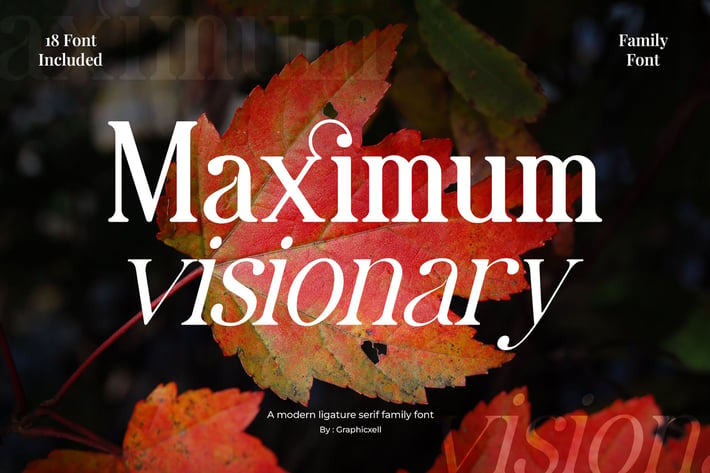
Maximum Visionary Family Elegant Serif Font
Maximum Visionary Family is an elegant serif font family designed to bring sophistication and clarity to your projects. With its classic serif details and modern balance, this typeface suits a wide range of uses. Whether you create branding, editorial layouts, packaging, or digital content, it offers a refined and professional look that stands out.
This font family features clean lines with sharp serifs, giving your text a timeless yet fresh appearance. In addition, the well-proportioned letterforms enhance readability across both headlines and body text. Therefore, it works beautifully in print materials like magazines and brochures, as well as on websites and social media.
Because Maximum Visionary Family includes multiple weights and styles, it provides excellent flexibility for designers. You can mix and match fonts within the family to create hierarchy and emphasis. This makes it perfect for creating logos, book covers, invitations, and advertising campaigns with consistent style.
Key features include:
- Elegant serif design with sharp and clean details
- Multiple weights and styles for versatile use
- Suitable for both display and body text
- Extended language support for global projects
- OpenType features like ligatures, alternates, and stylistic sets
- Optimized for high-quality print and fast web display
Why choose Maximum Visionary Family?
- Elegant and timeless serif design that elevates any project
- Versatile family with multiple weights and styles
- Excellent readability for headlines and long texts
- Ideal for print and digital applications
- Optimized for quick web loading and crisp display
- OpenType features for creative typography
- Multilingual support for global reach
Overall, Maximum Visionary Family combines beauty and function. It provides a sophisticated voice to your design while maintaining clarity. Whether you’re working on branding, editorial, packaging, or digital content, this font family delivers elegance and flexibility.
This font family features clean lines with sharp serifs, giving your text a timeless yet fresh appearance. In addition, the well-proportioned letterforms enhance readability across both headlines and body text. Therefore, it works beautifully in print materials like magazines and brochures, as well as on websites and social media.
Because Maximum Visionary Family includes multiple weights and styles, it provides excellent flexibility for designers. You can mix and match fonts within the family to create hierarchy and emphasis. This makes it perfect for creating logos, book covers, invitations, and advertising campaigns with consistent style.
Key features include:
- Elegant serif design with sharp and clean details
- Multiple weights and styles for versatile use
- Suitable for both display and body text
- Extended language support for global projects
- OpenType features like ligatures, alternates, and stylistic sets
- Optimized for high-quality print and fast web display
Why choose Maximum Visionary Family?
- Elegant and timeless serif design that elevates any project
- Versatile family with multiple weights and styles
- Excellent readability for headlines and long texts
- Ideal for print and digital applications
- Optimized for quick web loading and crisp display
- OpenType features for creative typography
- Multilingual support for global reach
Overall, Maximum Visionary Family combines beauty and function. It provides a sophisticated voice to your design while maintaining clarity. Whether you’re working on branding, editorial, packaging, or digital content, this font family delivers elegance and flexibility.